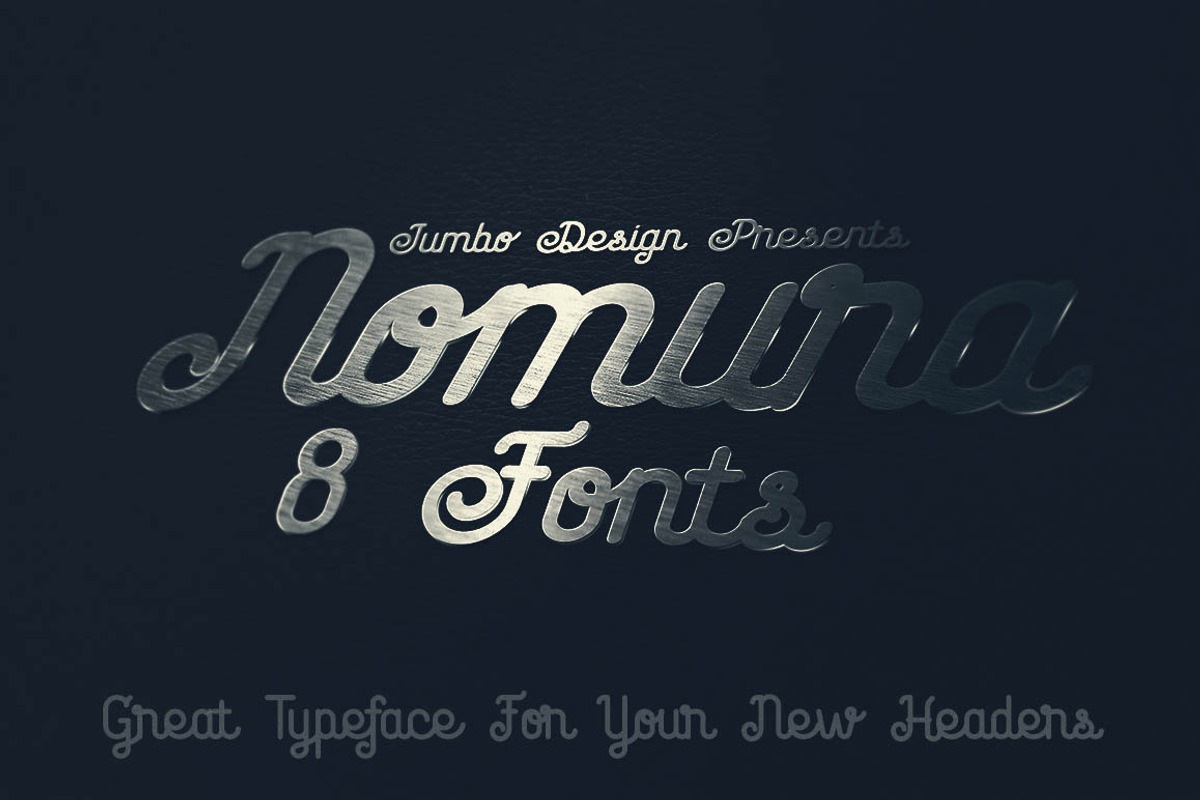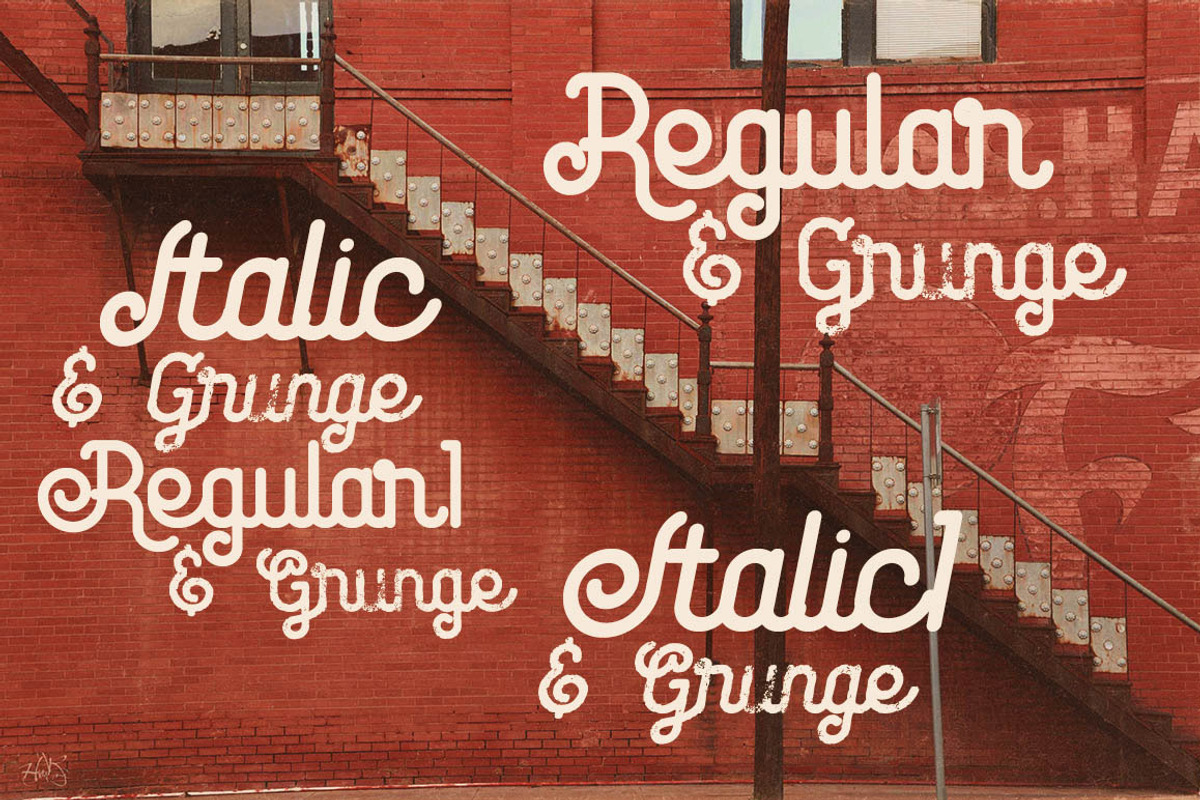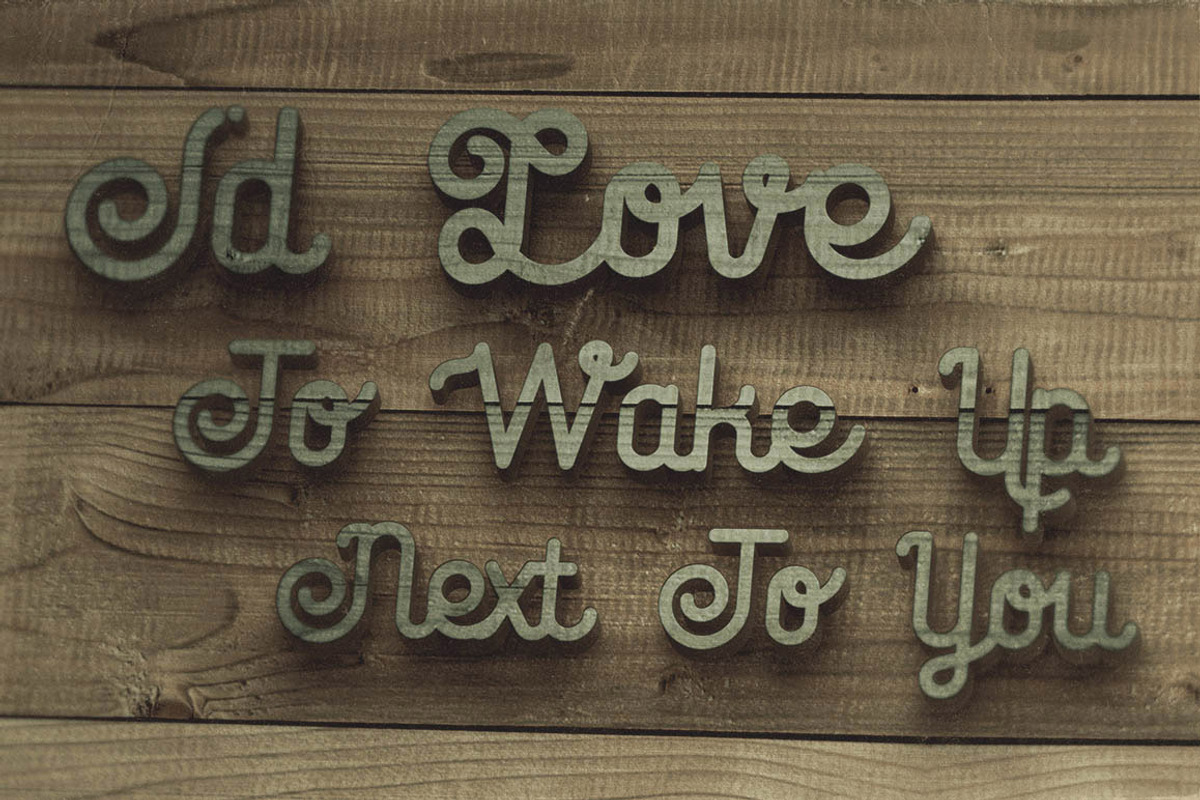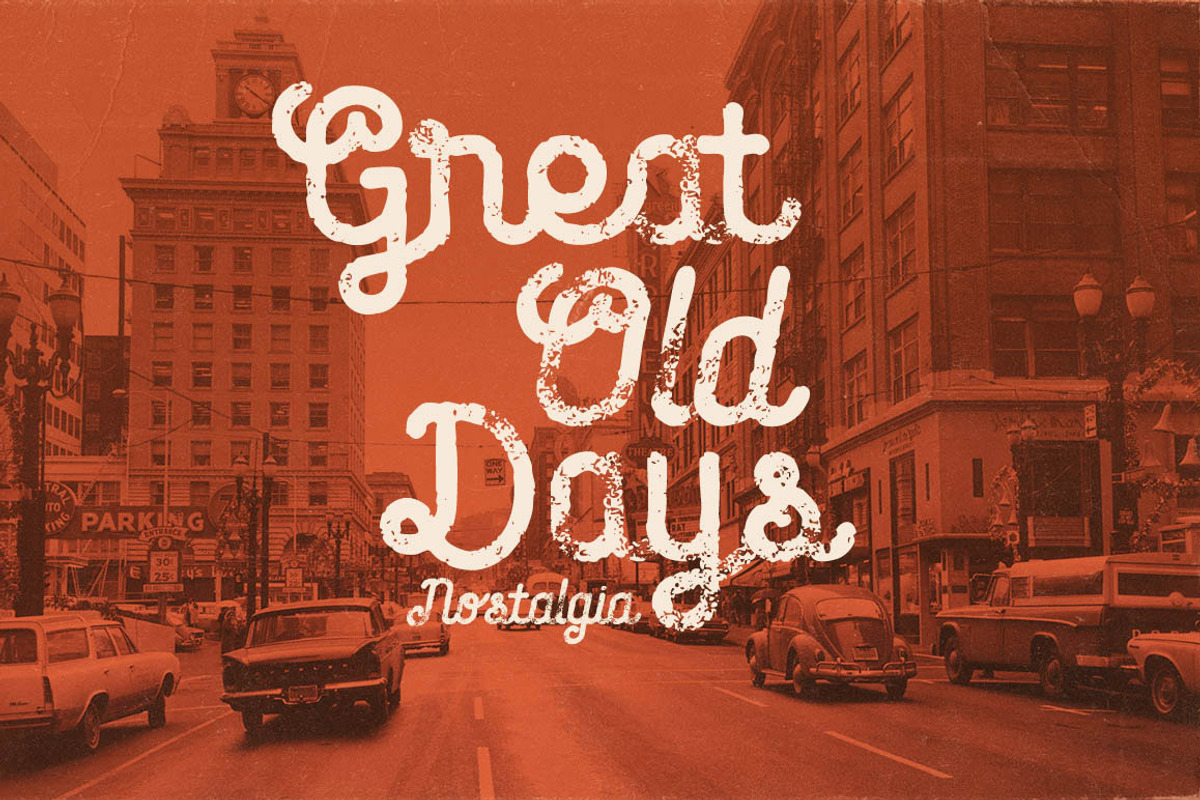
Nomura - Vintage Style Font
Nomura - Vintage Style Font by JumboDesign is a font selected for branding, posters, packaging, typography.
Nomura - Vintage Style Font by JumboDesign fits naturally into Branding, posters, packaging, typography.